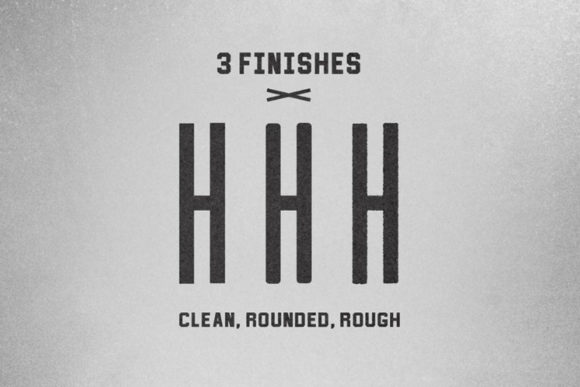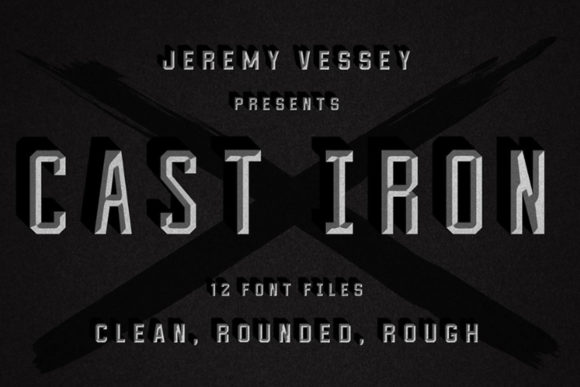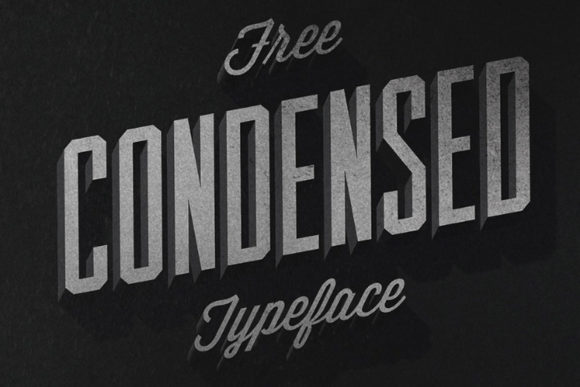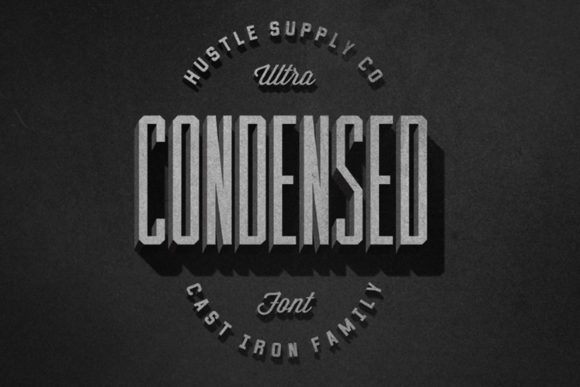
Cast Iron is a casual and modern serif font. Clean and a strong, this font is the perfect fit for all of your logos, branding, social media, and crafty DIY projects.